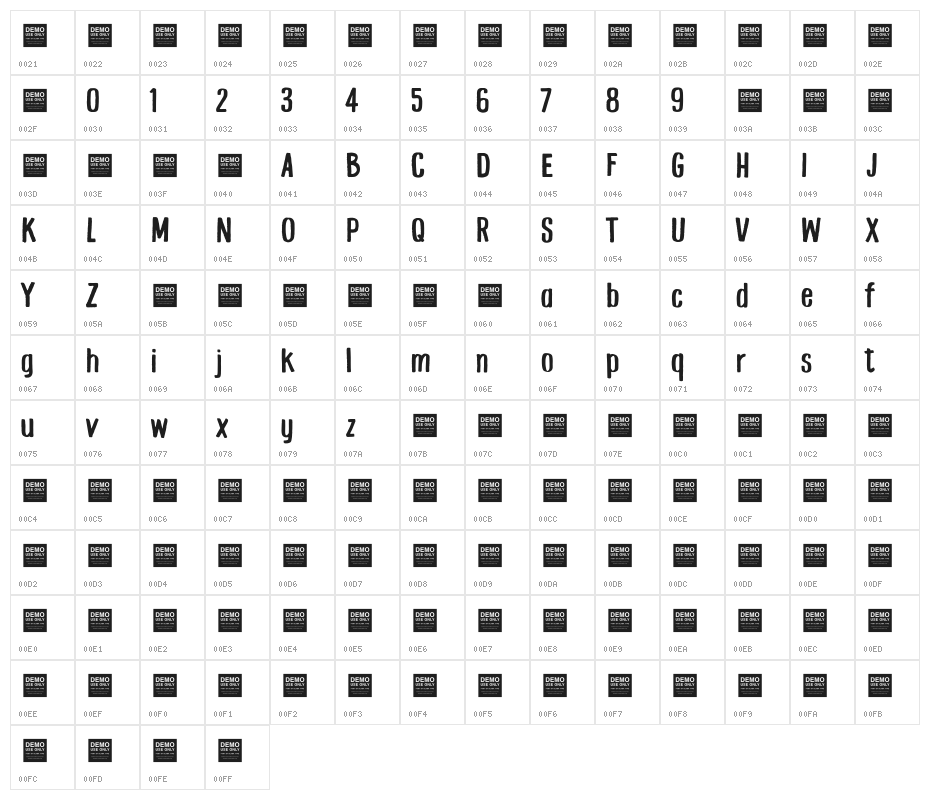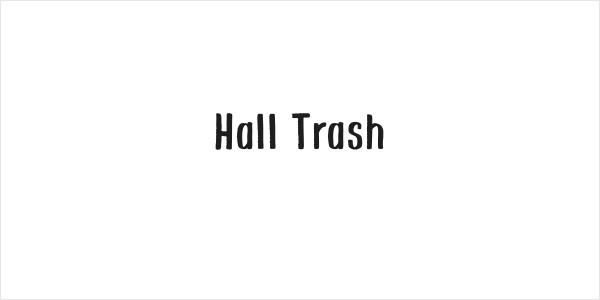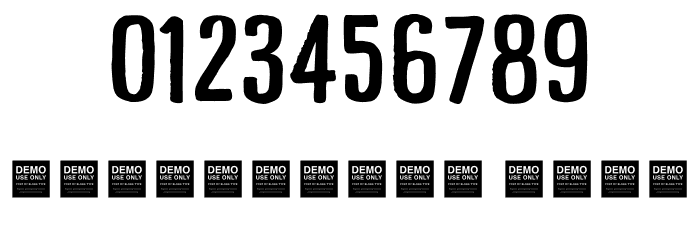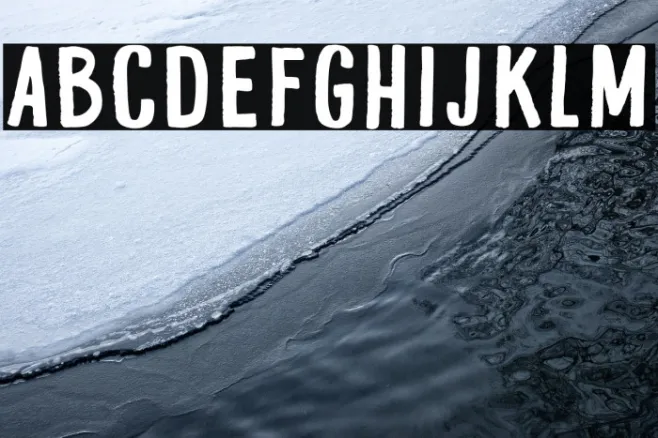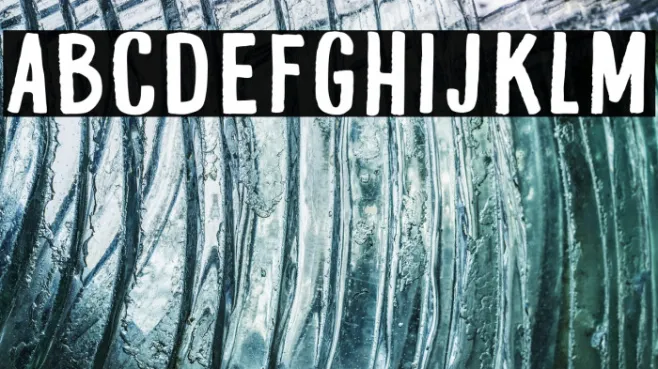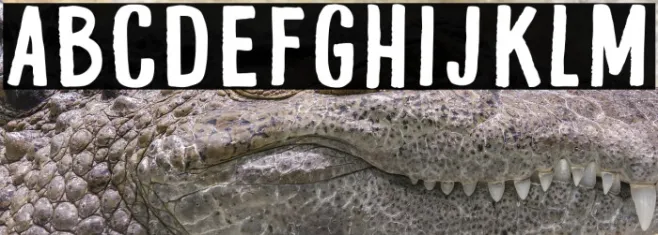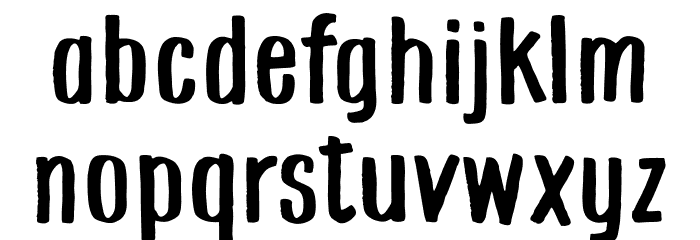
Hall Trash Font
Hall Trash Description
This font features a bold and rugged style with a hand-drawn appearance. The characters have a slightly uneven texture, giving them a rustic and organic feel. The uppercase and lowercase letters maintain a consistent height, while the numbers are clear and legible. The special characters blend seamlessly with the overall design, enhancing its versatility. The font's boldness makes it stand out, while its handcrafted look adds a touch of authenticity and warmth.
| Proposed Projects | Ideal for branding, packaging, posters, and any project requiring a handcrafted, authentic look. |